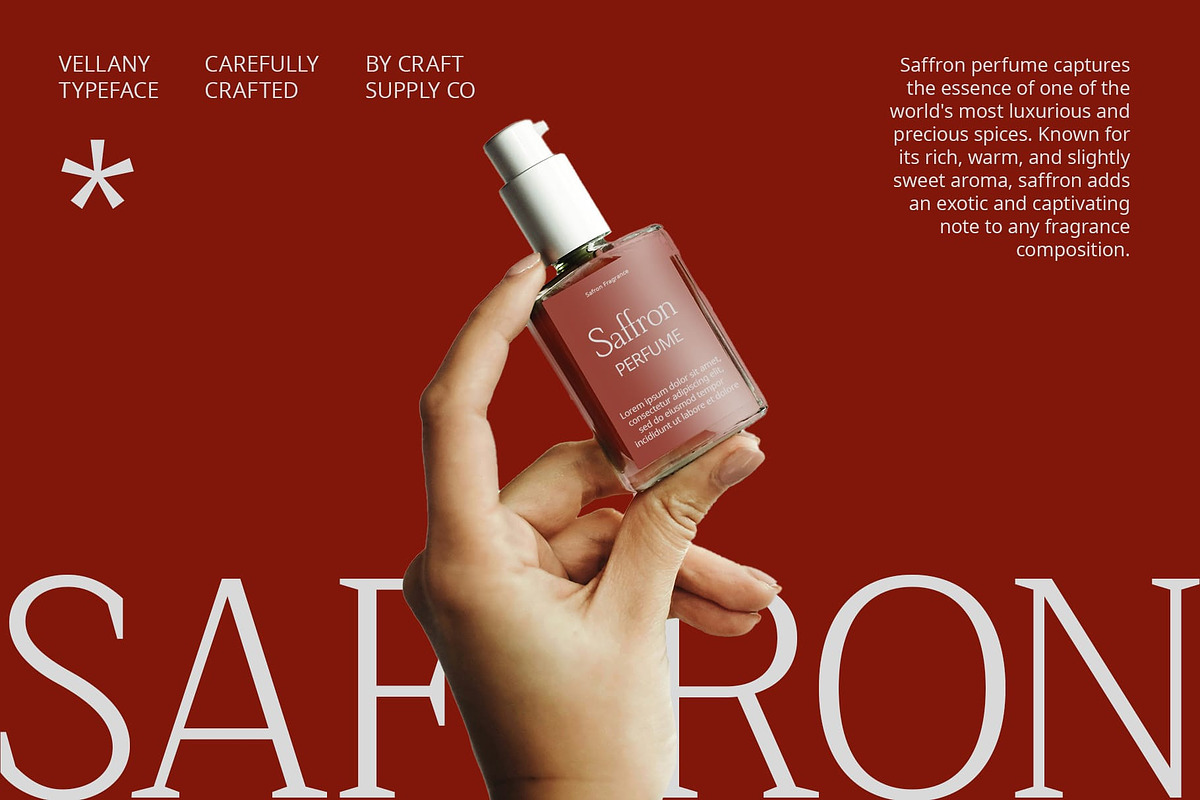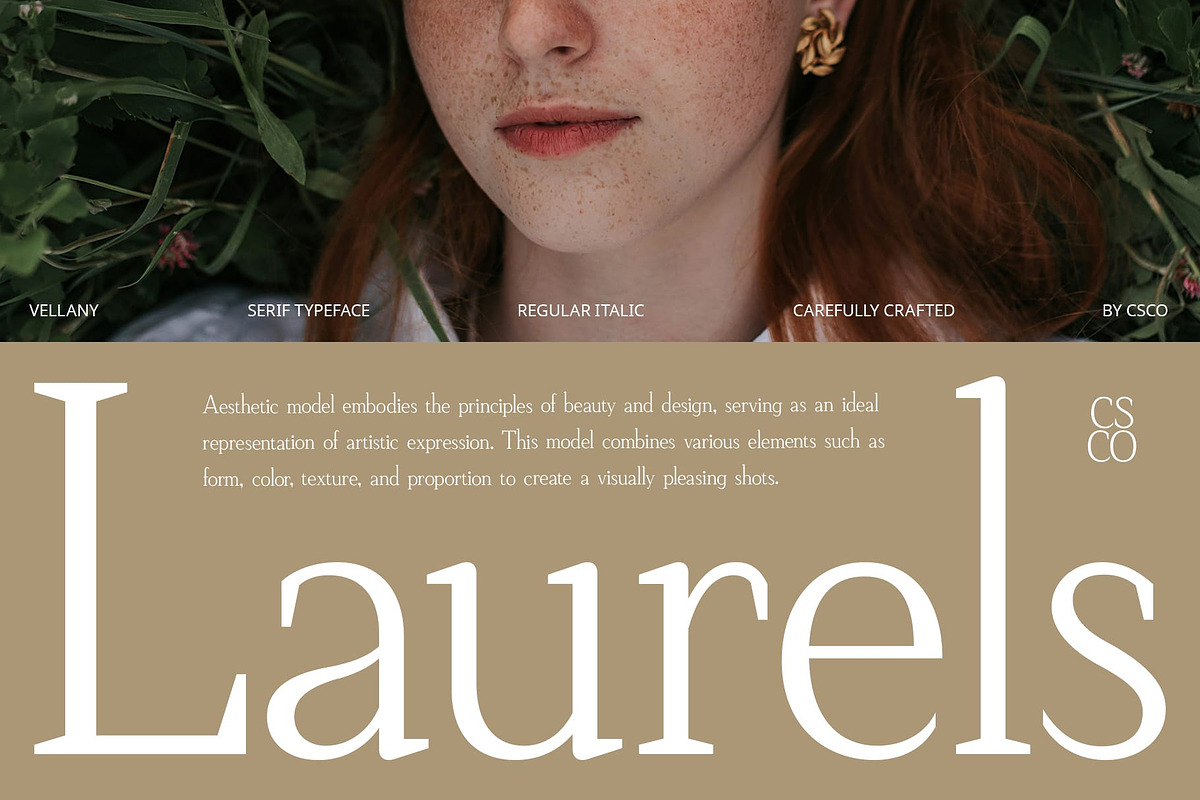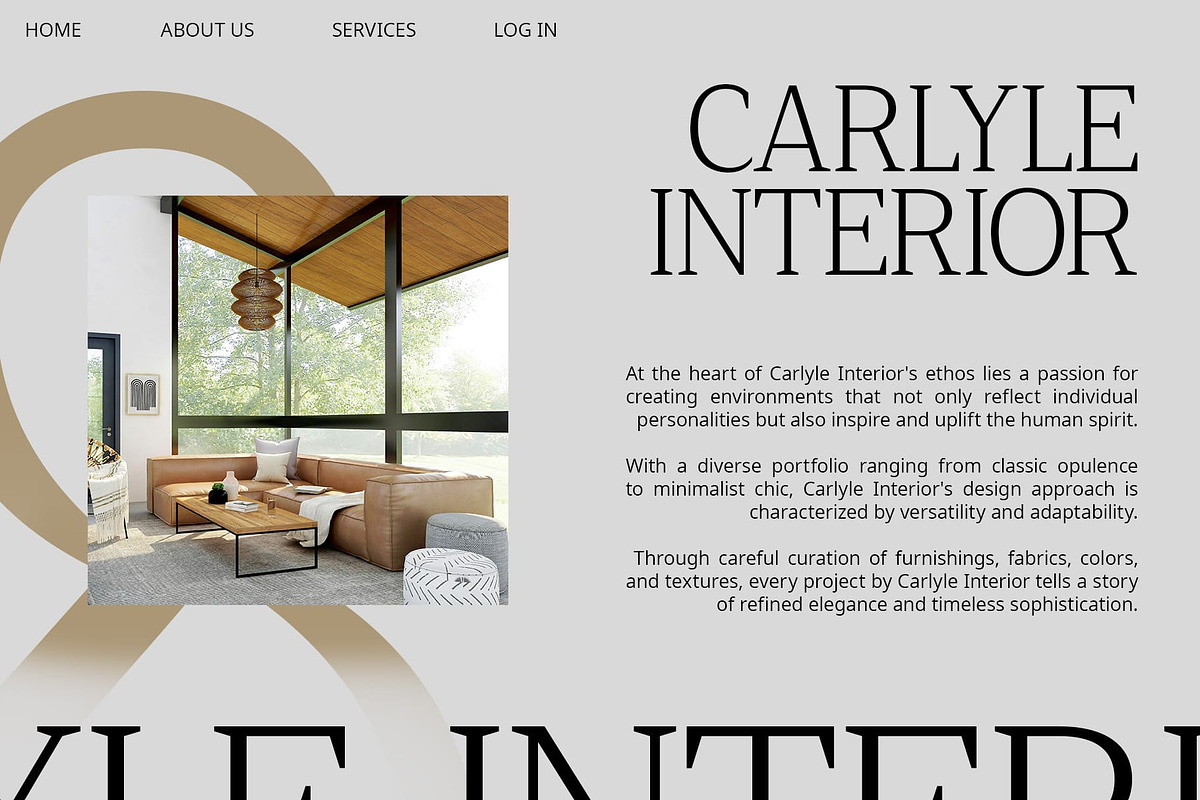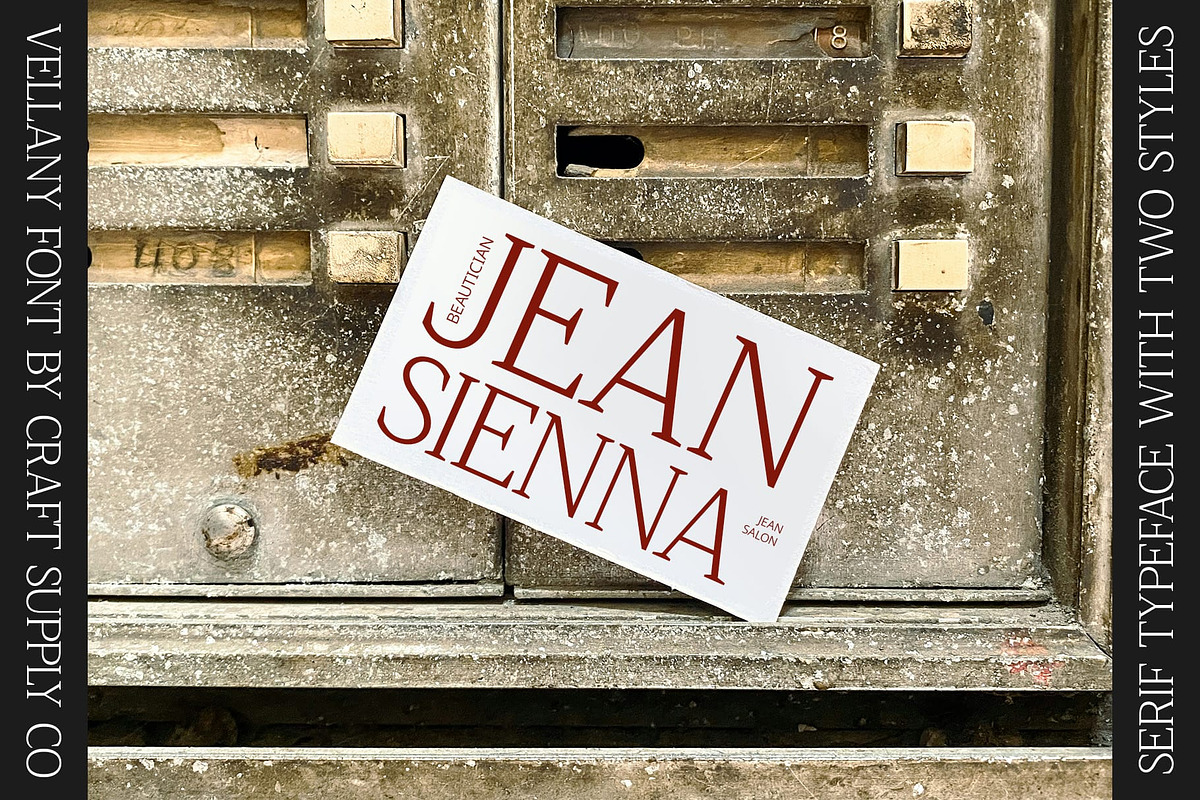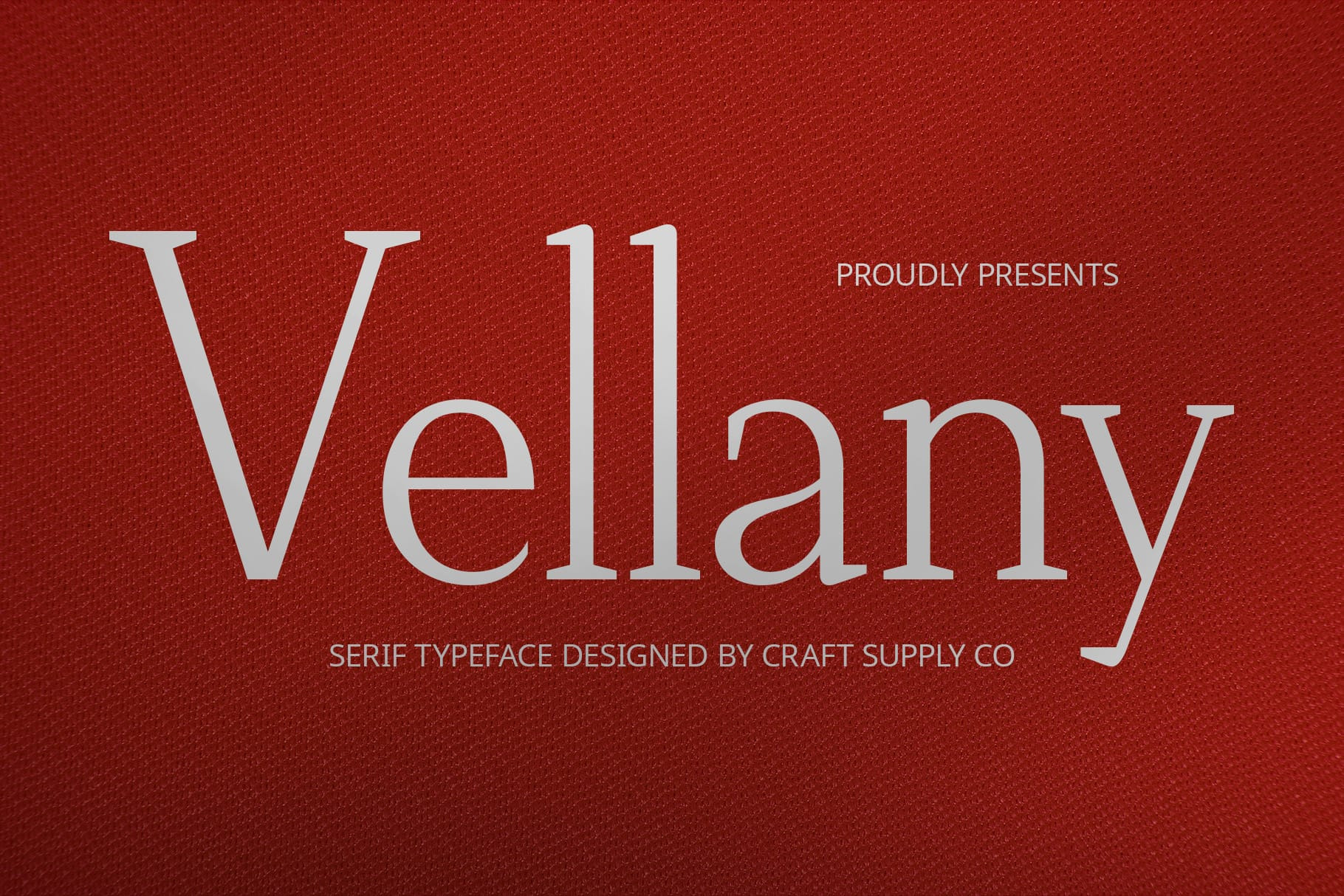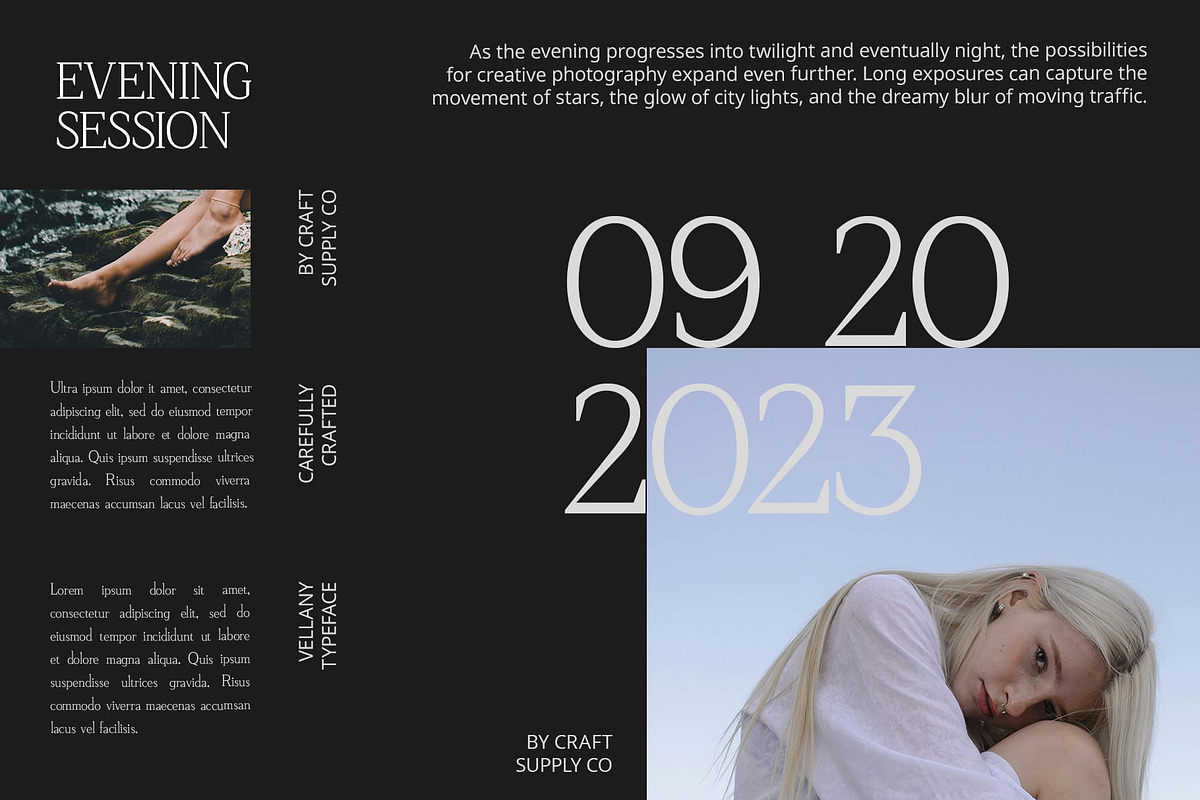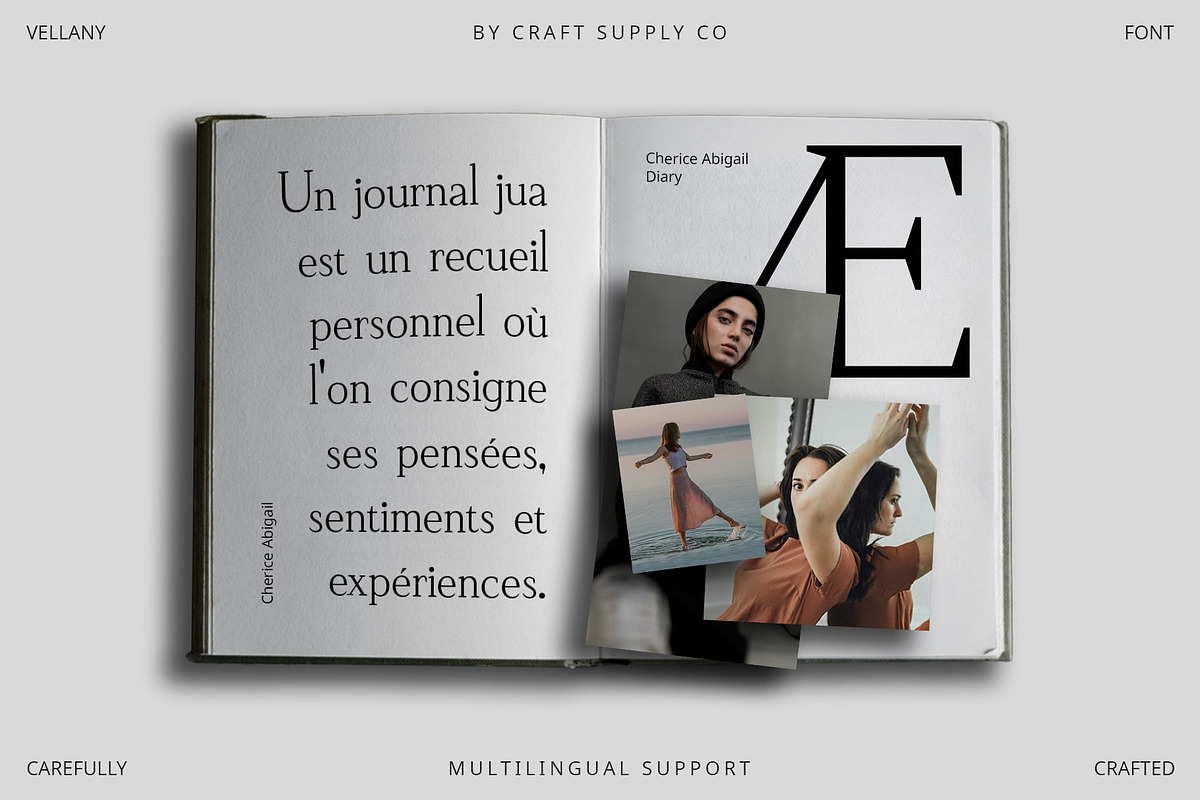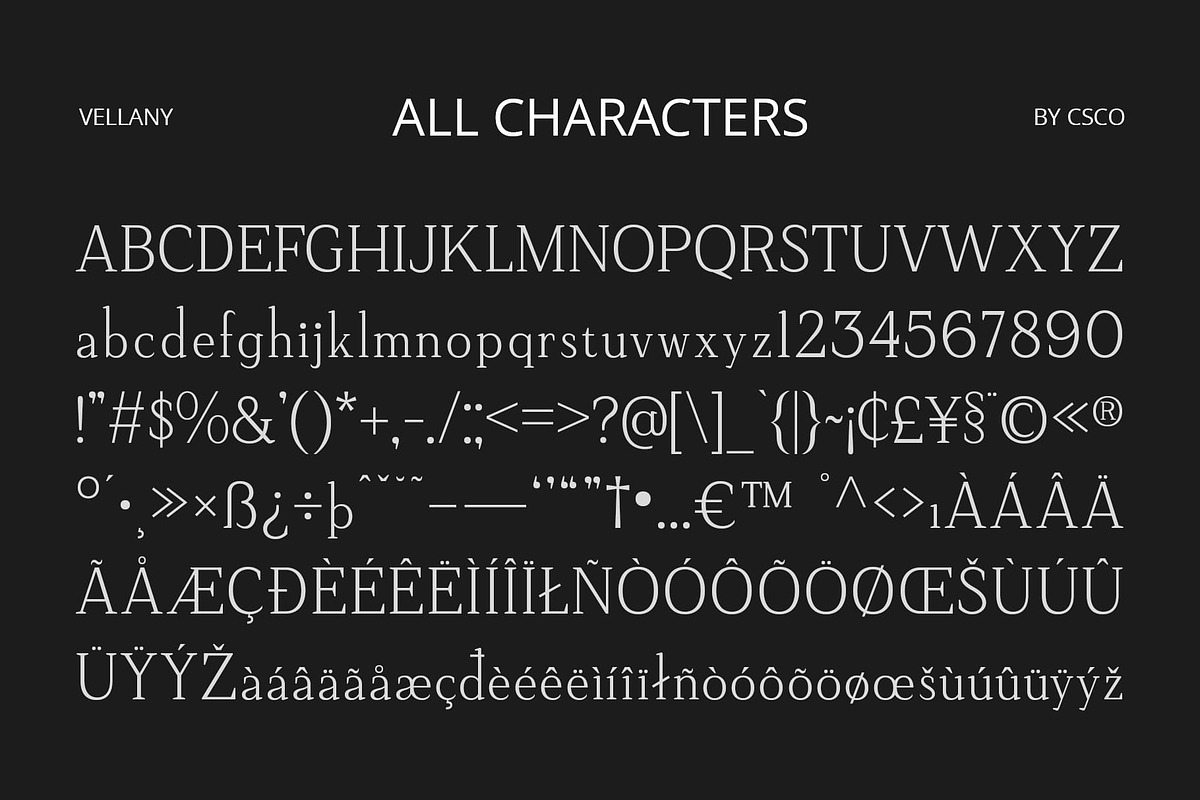
Vellany – Serif Typeface
Vellany – Serif Typeface: Where Modernity Meets Elegance
Modern Elegant Serif Design
Vellany – Serif Typeface is a modern serif font that adds an elegant and contemporary touch to interior design. Its sleek lines and classic serif details make it ideal for various interior design styles, especially modern classic or minimalist themes.
Versatile and Stylish
With its versatile design, Vellany Font is suitable for a variety of uses, including branding, editorial design, and fashion. Its modern elegance adds a touch of sophistication to any project, ensuring that your work stands out from the crowd.
Enhanced Interior Design Appeal
Vellany Font prioritizes interior design appeal, ensuring that your designs exude elegance and style. Whether used in print or digital media, this font adds a touch of class that enhances the overall aesthetic of any interior design project.
Perfect for Branding and Editorial Design
Whether you’re designing a brand identity, a magazine layout, or a fashion catalog, Vellany Font is the perfect choice for projects that require a clean, professional, and slightly formal look. Its timeless design ensures that your work will always look stylish and up-to-date with current design trends.
- Vellany Regular
- Vellany Italic